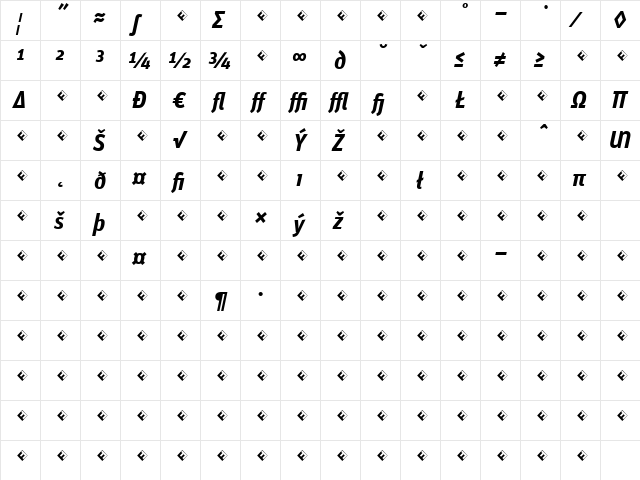
Unit-BoldItalicExpert Regular
| Foundry | Erik Spiekermann, Christian Schwartz; published by FontShop International for the FontFont Library |
| Designer | Erik Spiekermann, Christian Schwartz |
Design Context for Unit-BoldItalicExpert Typeface
Unit-BoldItalicExpert is a composed and adaptable typeface that performs quietly and consistently across a wide range of design contexts. The slanted form adds forward momentum and visual energy. The heavy weight commands attention and anchors typographic hierarchies.